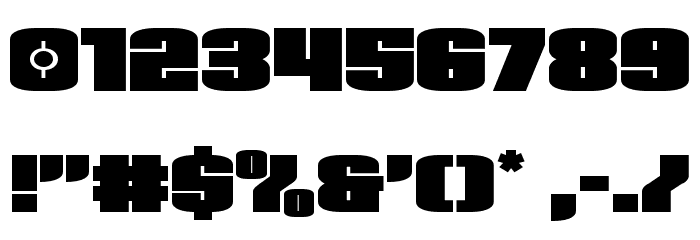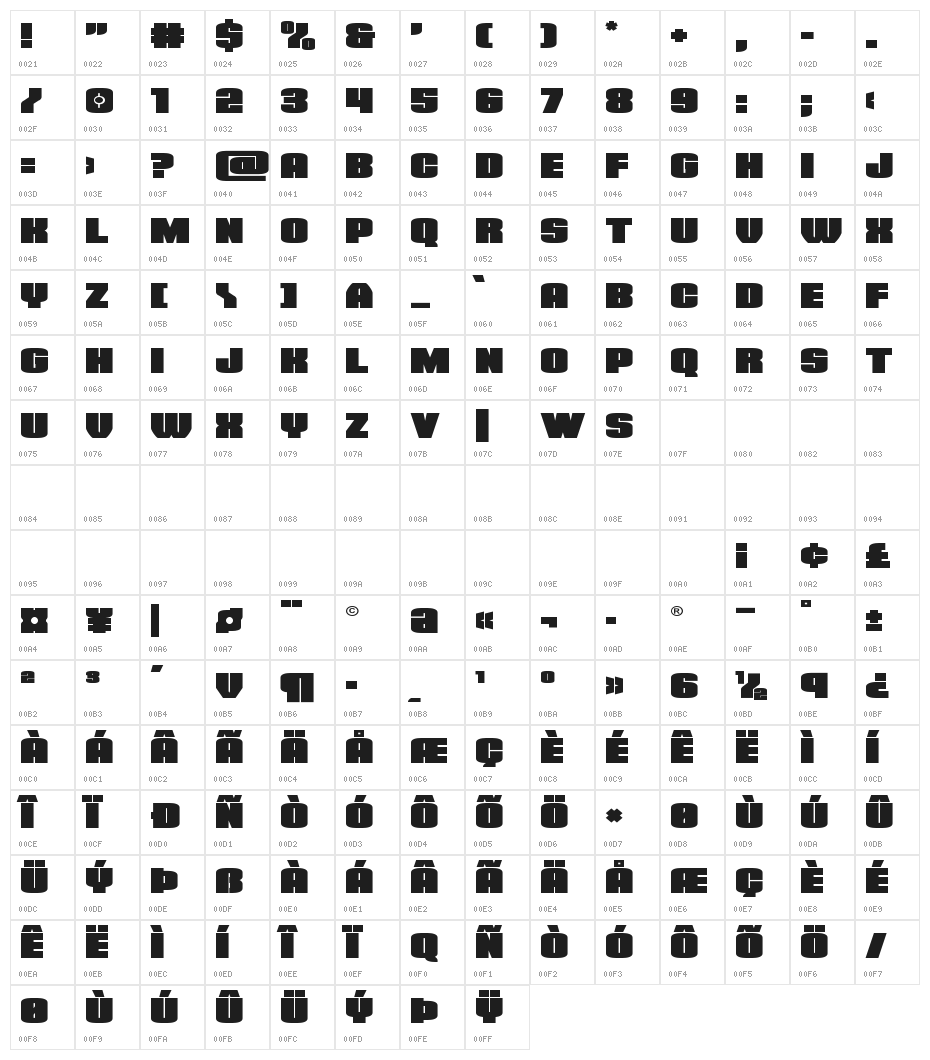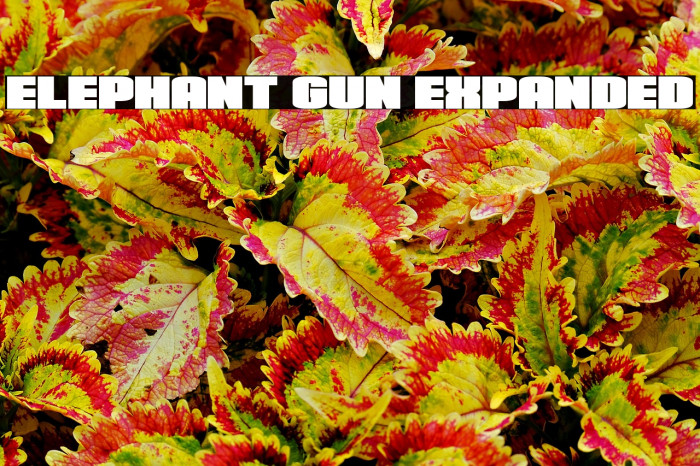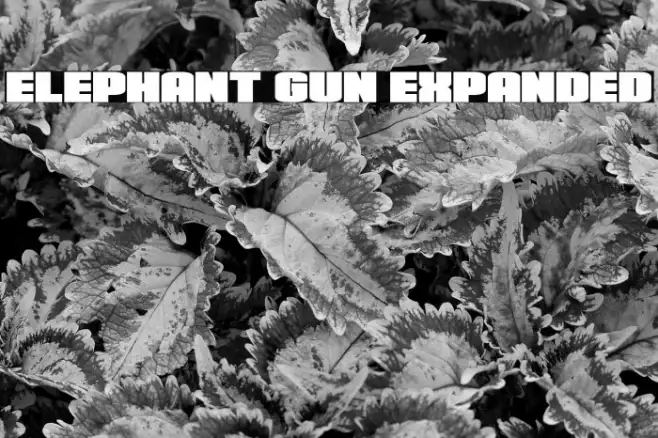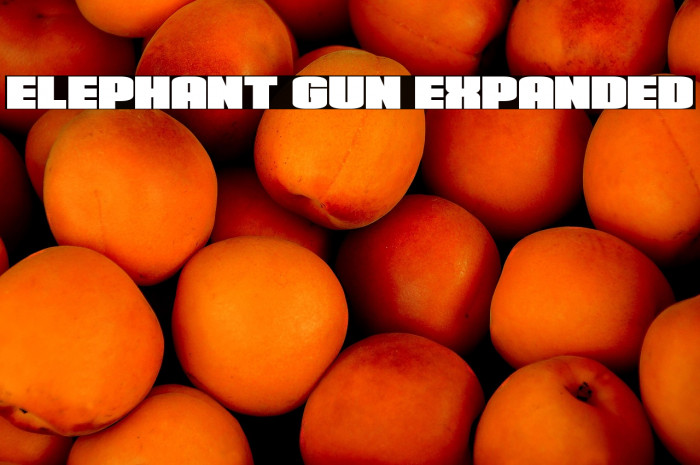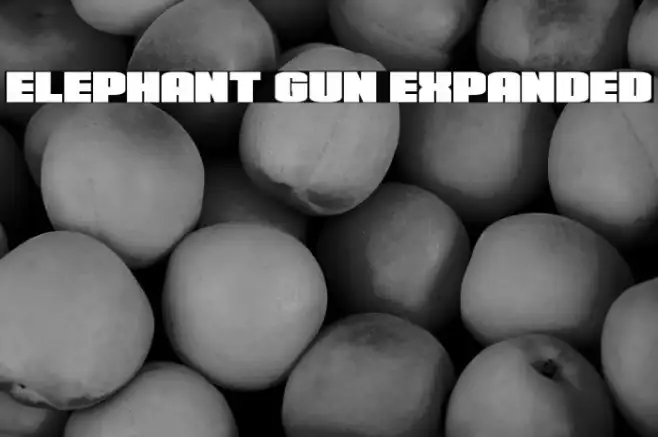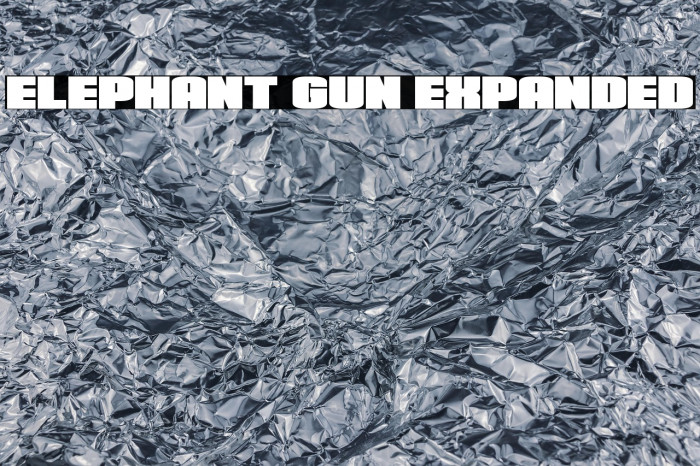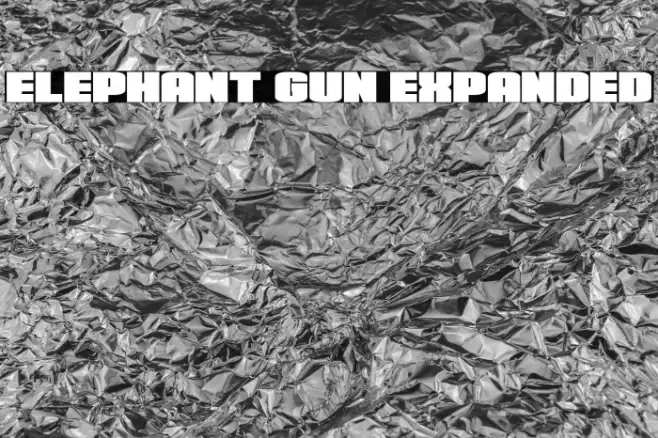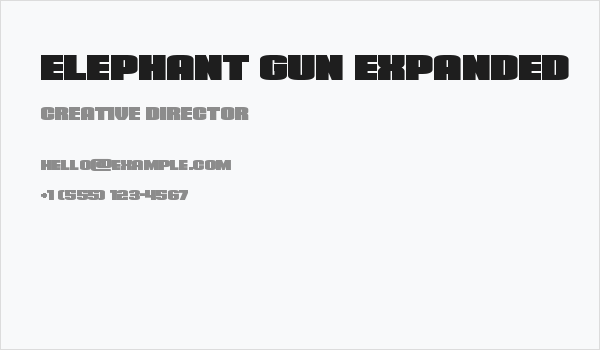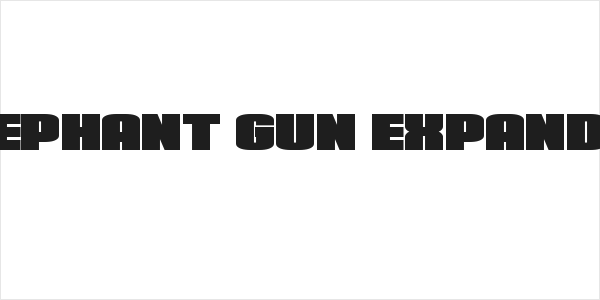
Elephant Gun Expanded Font
Elephant Gun Expanded Description
This font features a bold and robust design with a strong presence, characterized by its thick, block-like letterforms. The uppercase and lowercase letters maintain a consistent width, creating a uniform and cohesive appearance. The numbers and special characters are designed to match the boldness of the letters, ensuring a seamless integration across all elements. The font's expanded width gives it a commanding and impactful look, making it ideal for attention-grabbing headlines and titles. Its geometric shapes and clean lines contribute to a modern and assertive style, suitable for projects that require a strong visual statement.